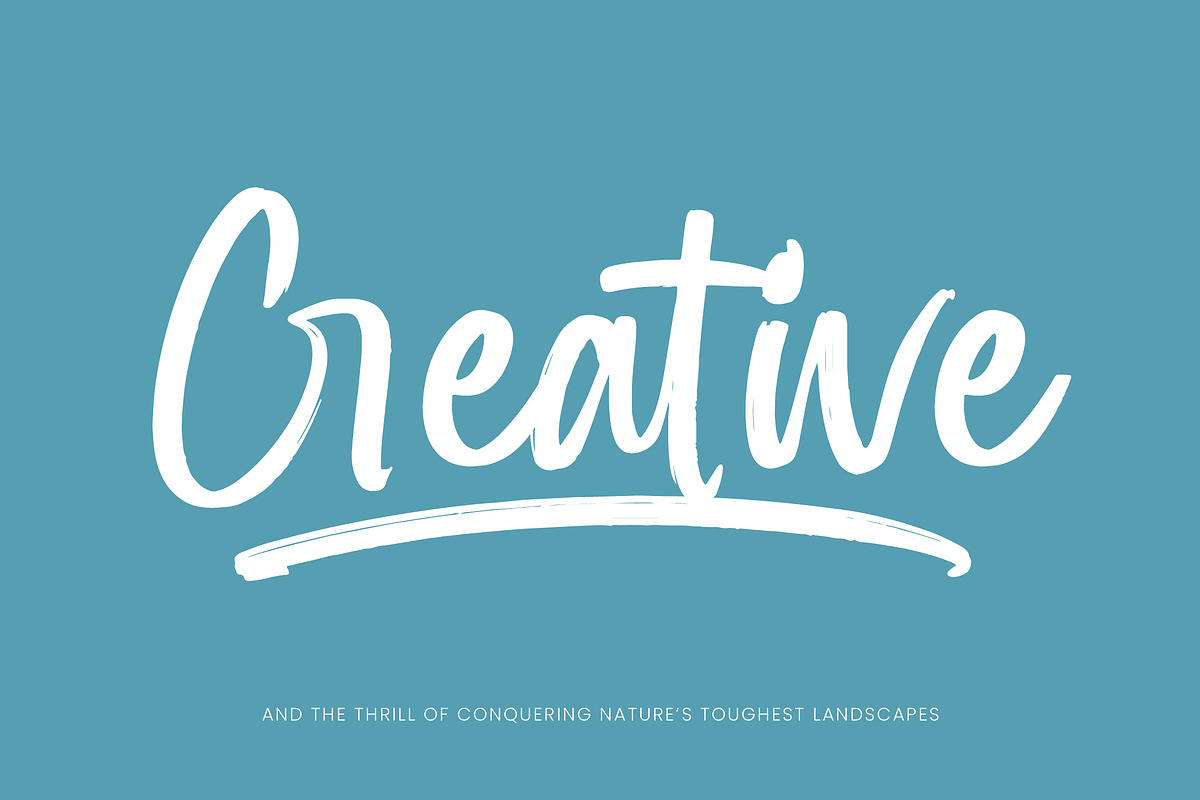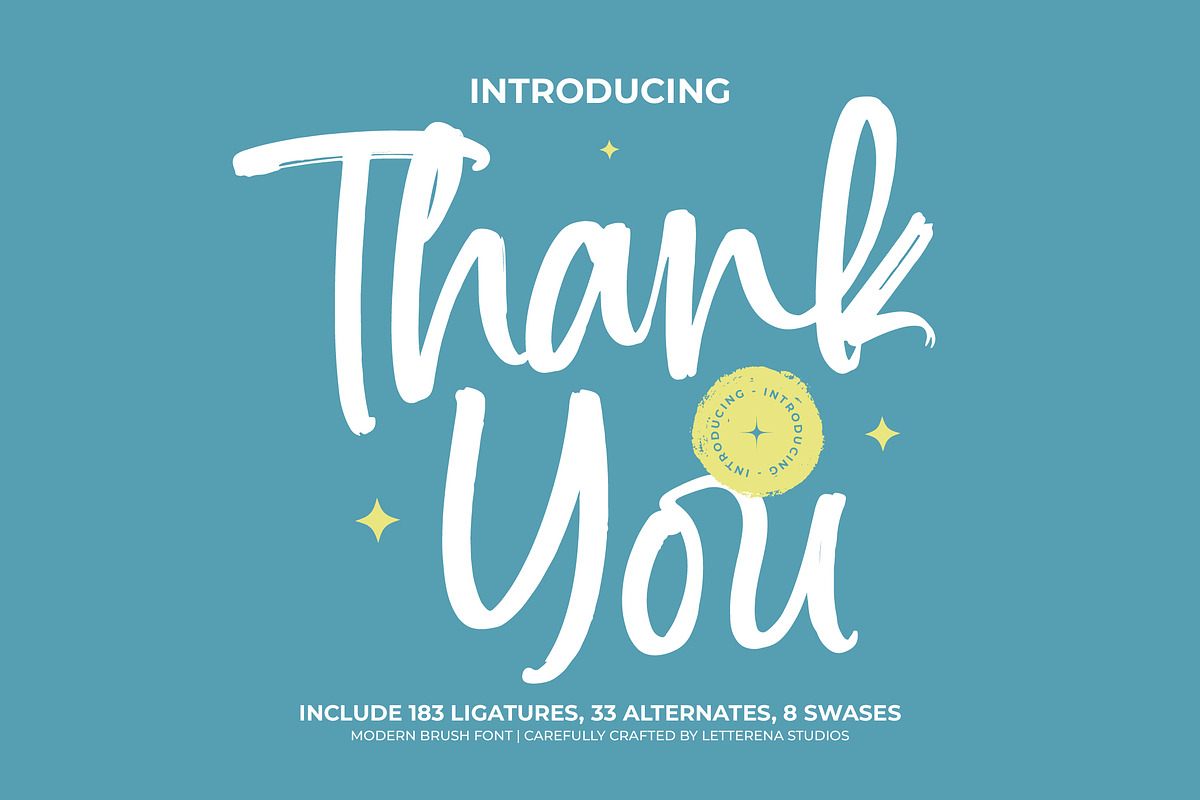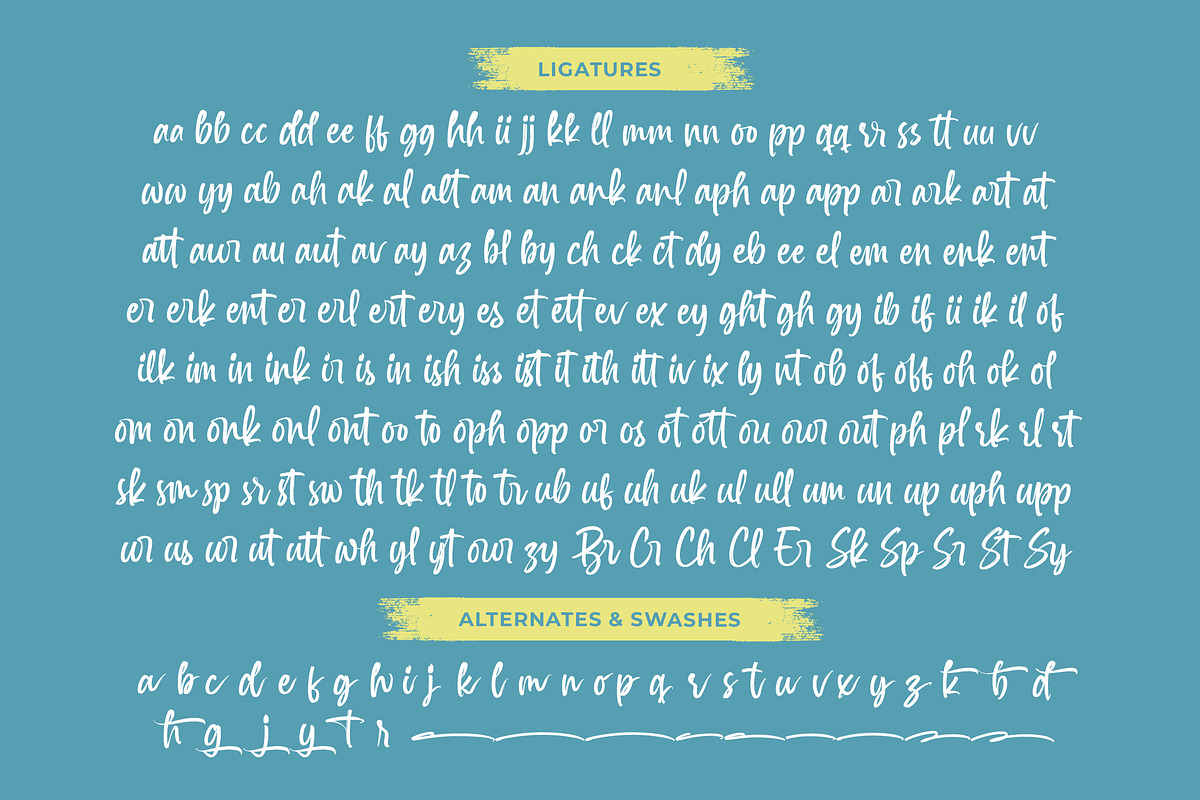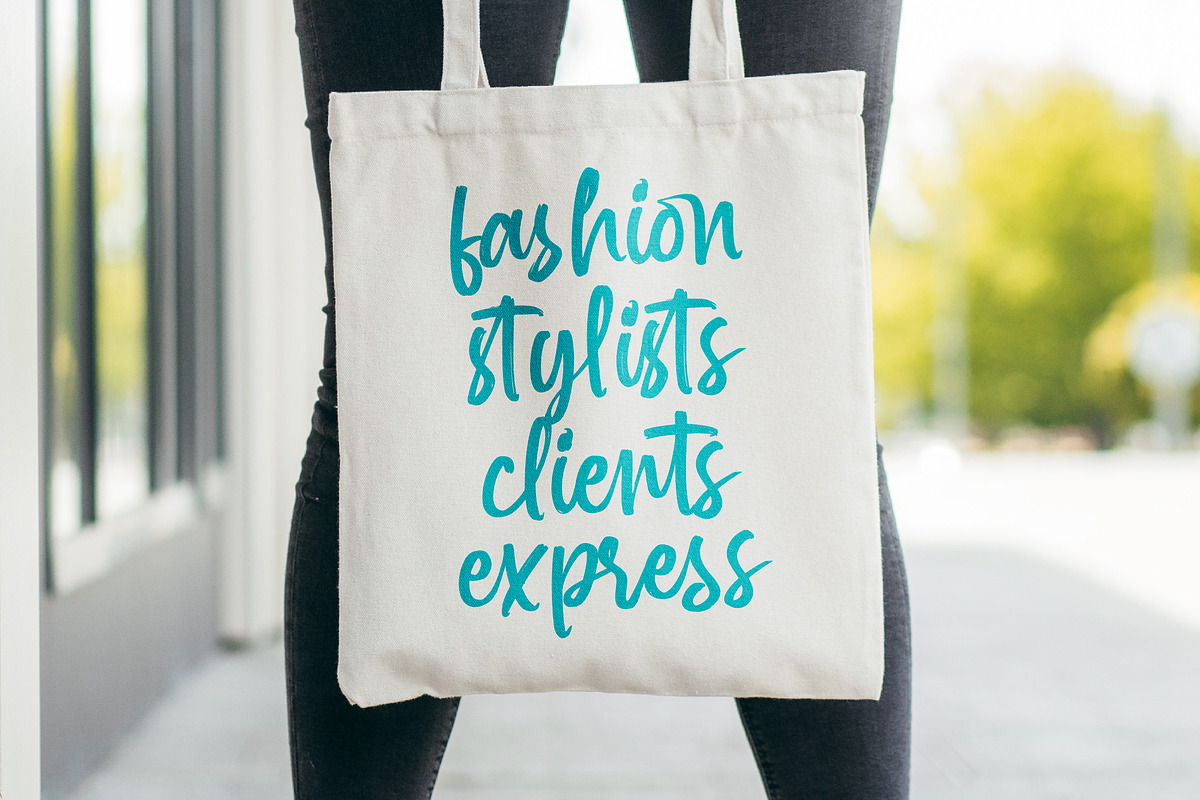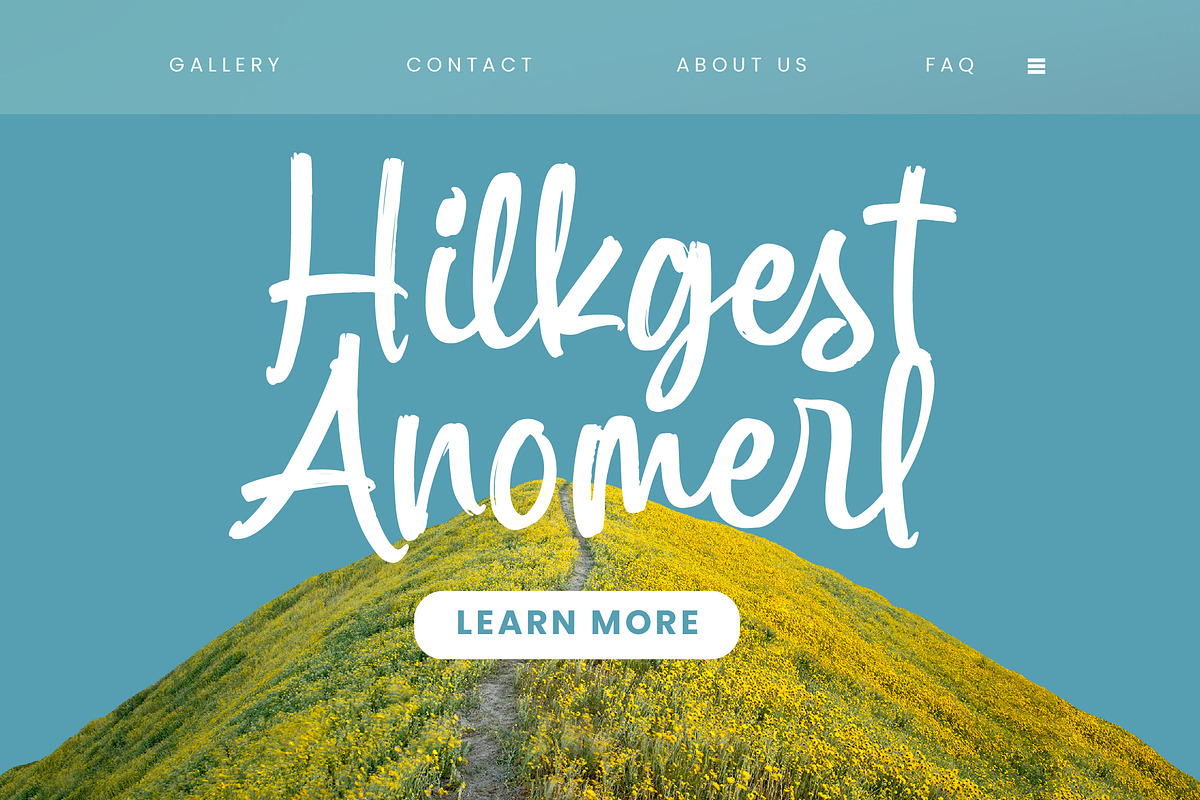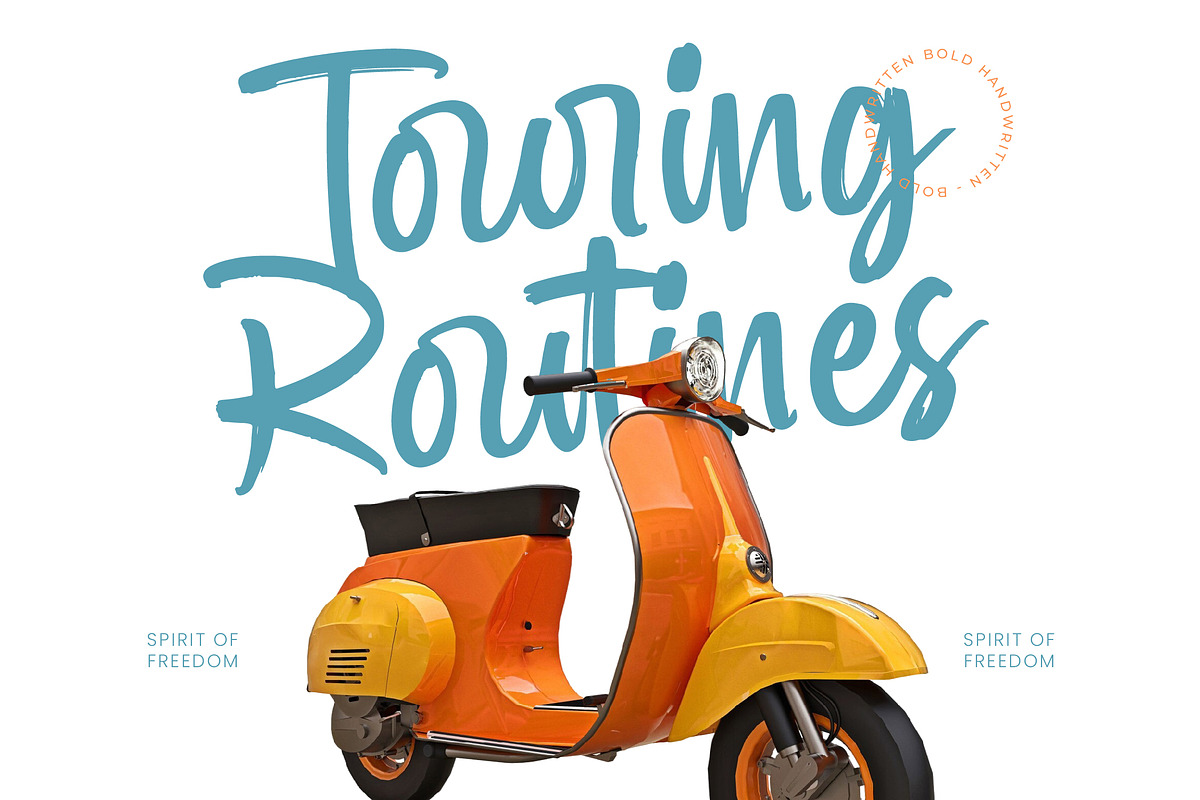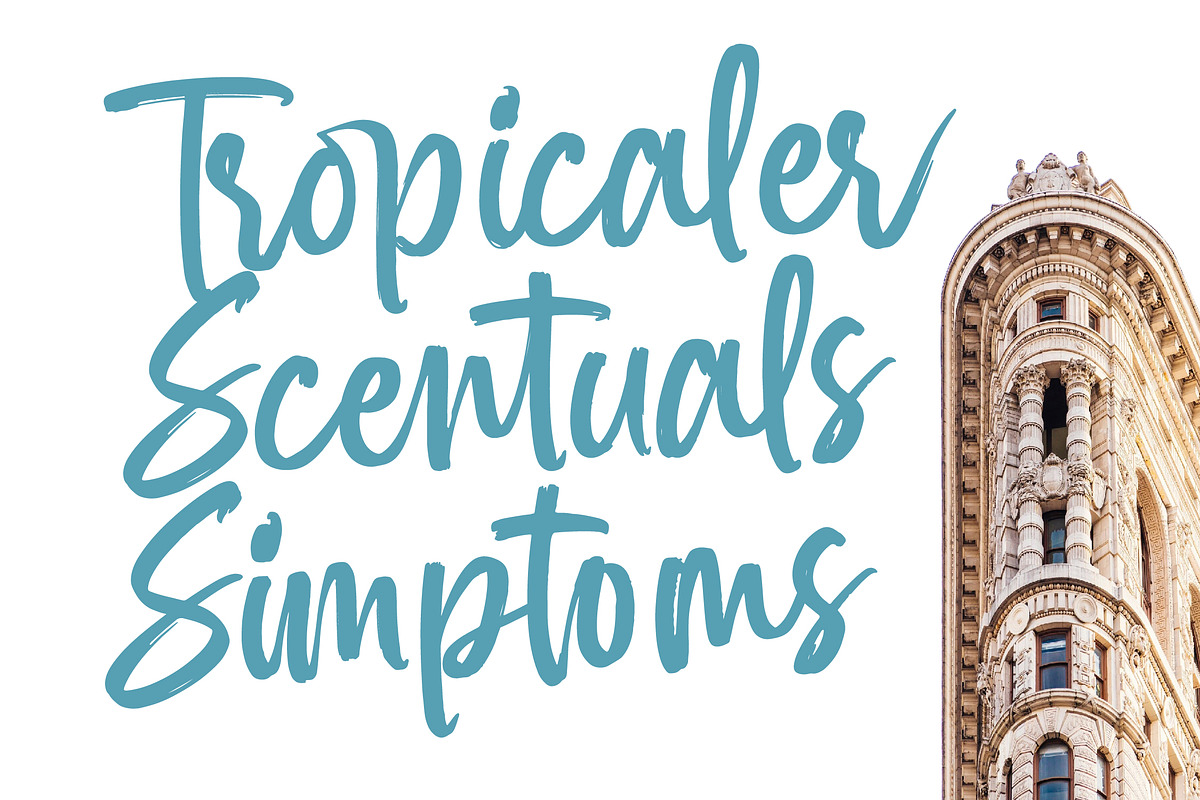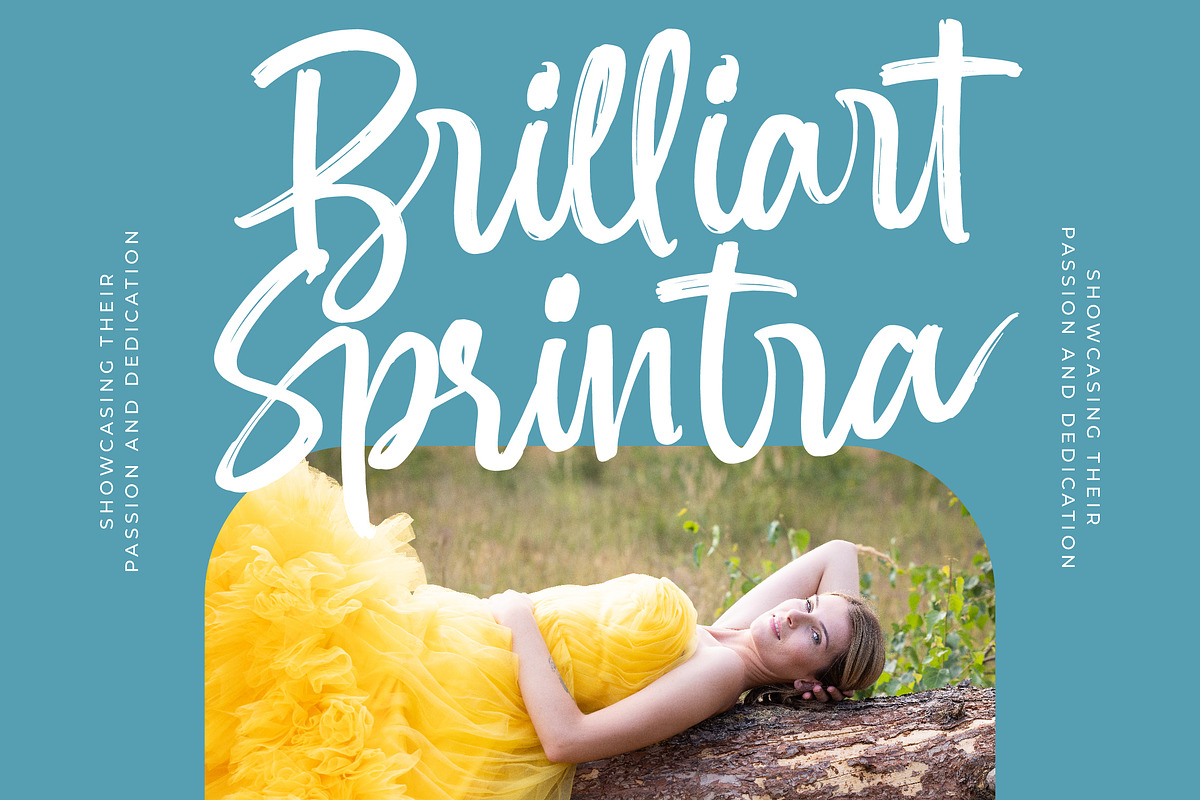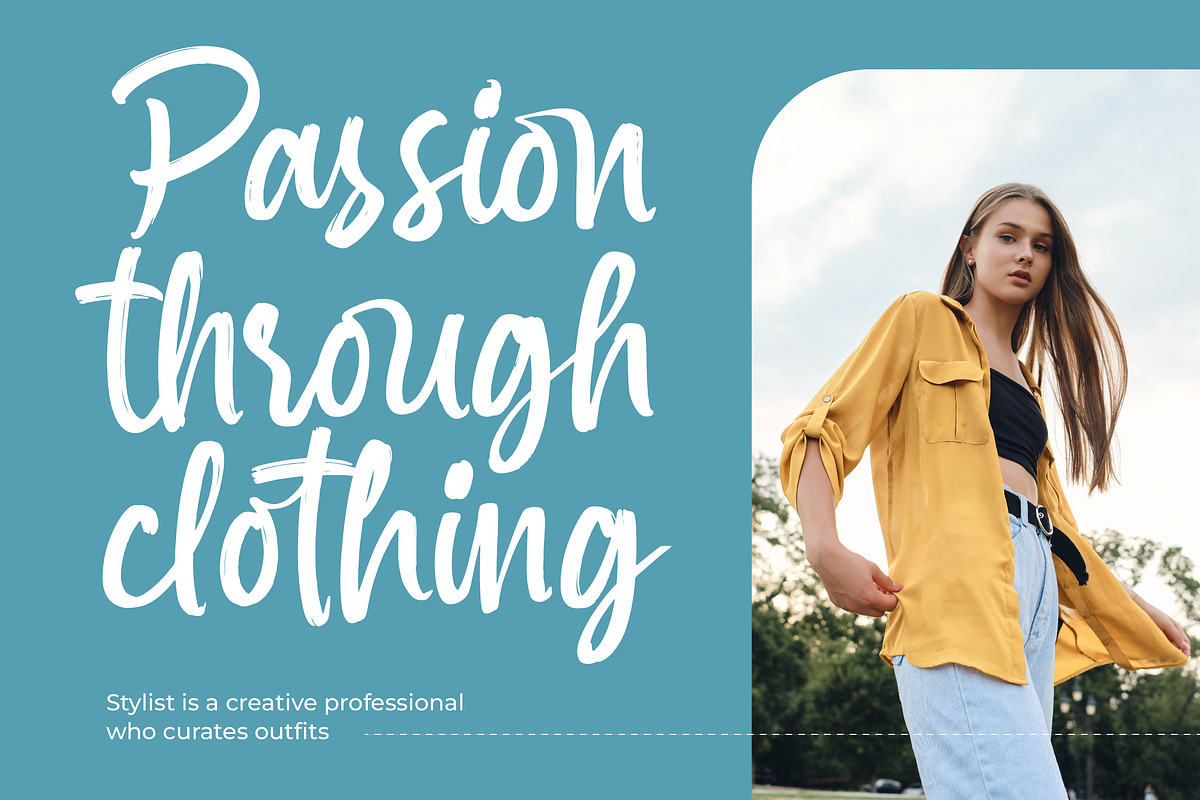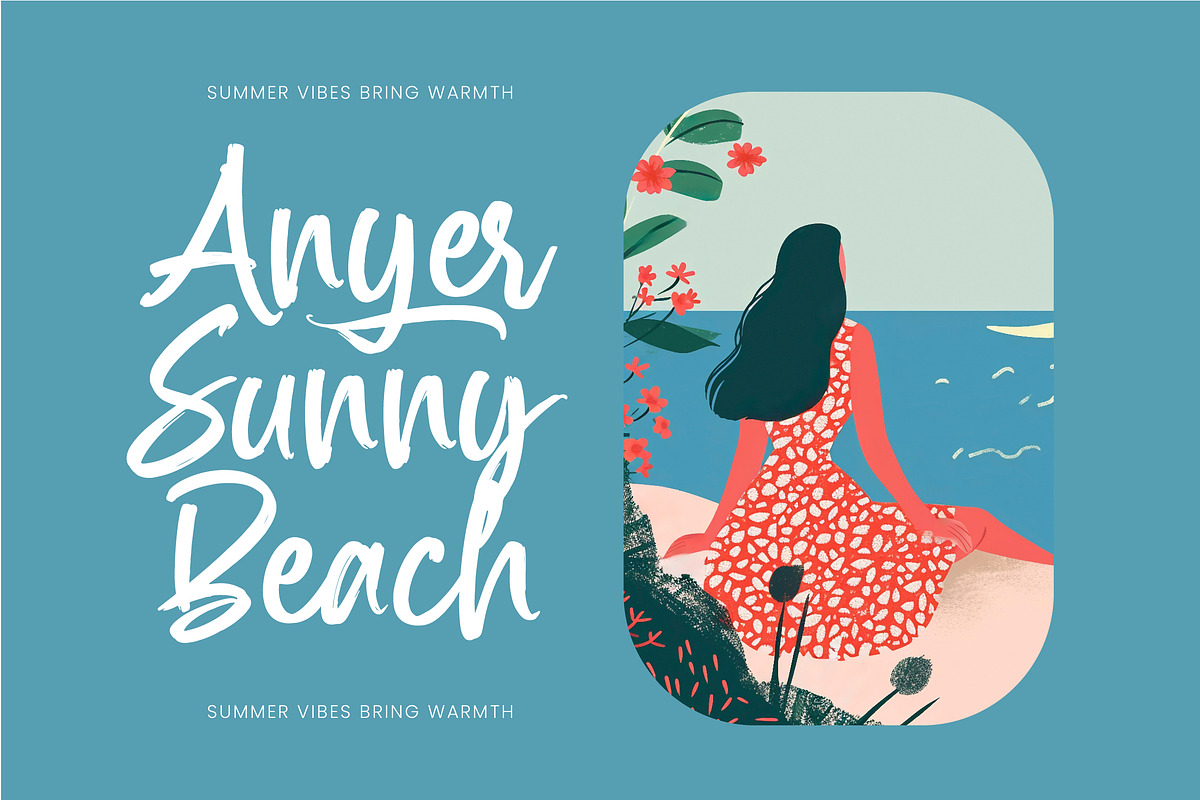
Spenty Brother Modern Brush Font
Spenty Brother – Modern Brush Font , from Letterena, is a Luxury Script font, suitable for any projects such as: logos, branding projects, homeware designs, product packaging, mugs, quotes, posters, shopping bags, t-shirts, book covers, name card, invitation cards, greeting cards, label, photography, watermark, special events, and all your other luxury and beautiful projects that need a Luxury Script taste.
- 183 Ligature 33 Alternate & 8 Swashes